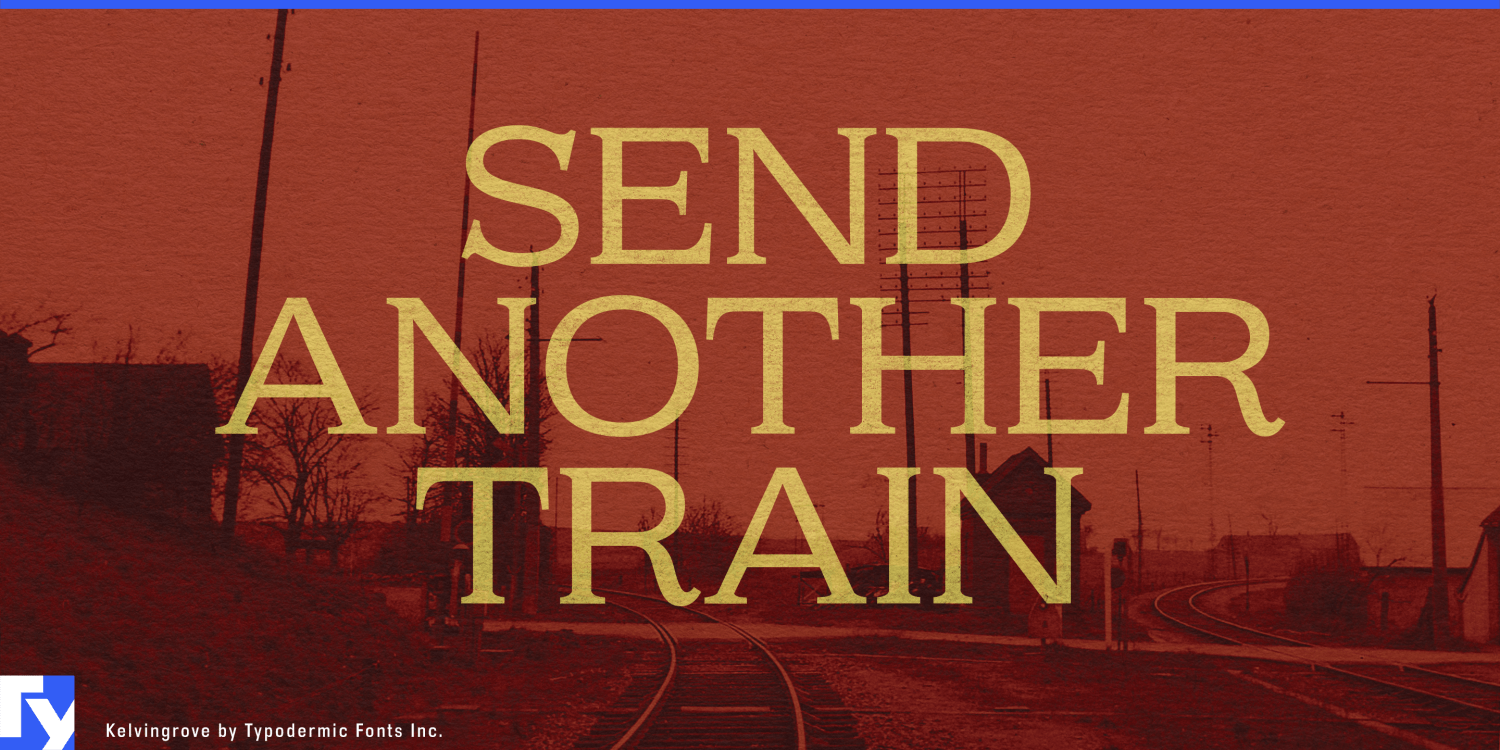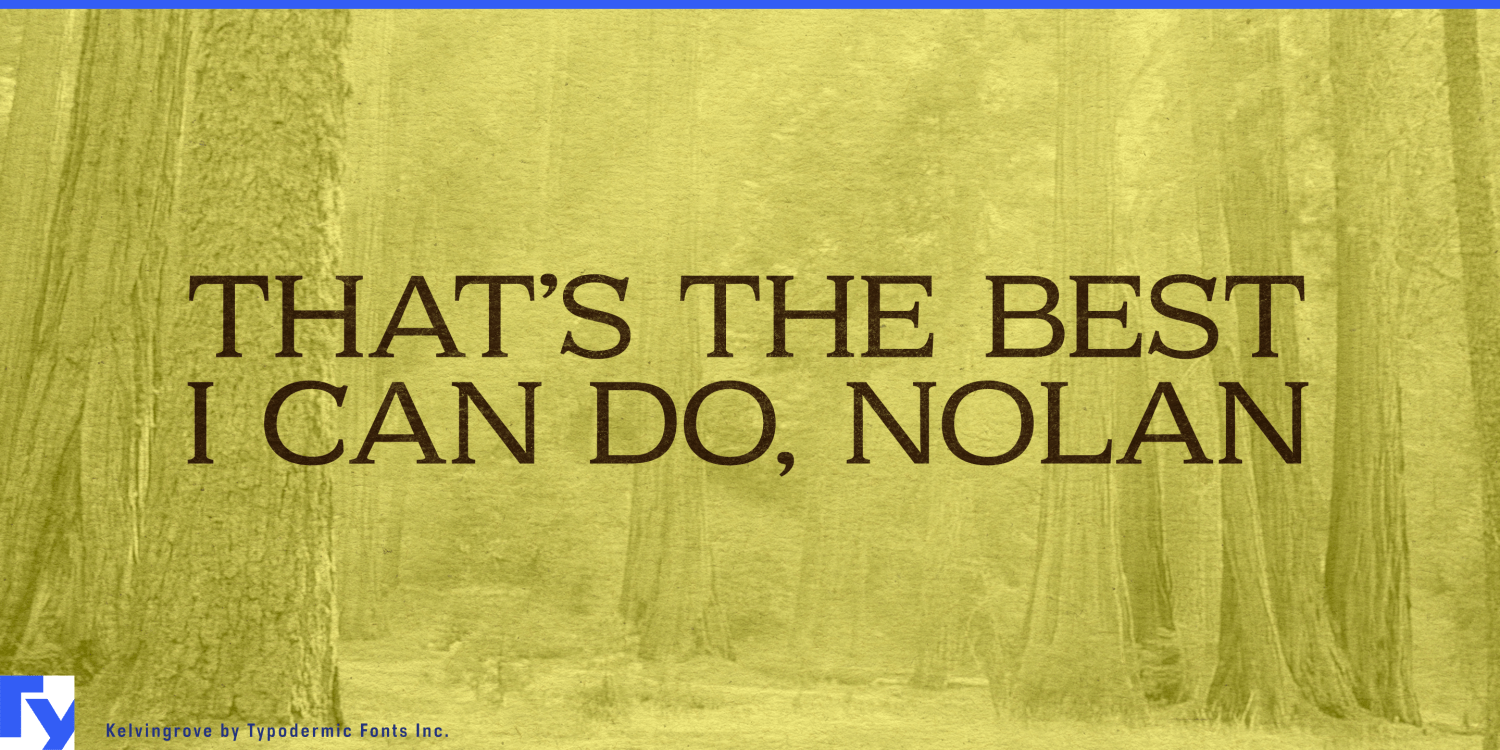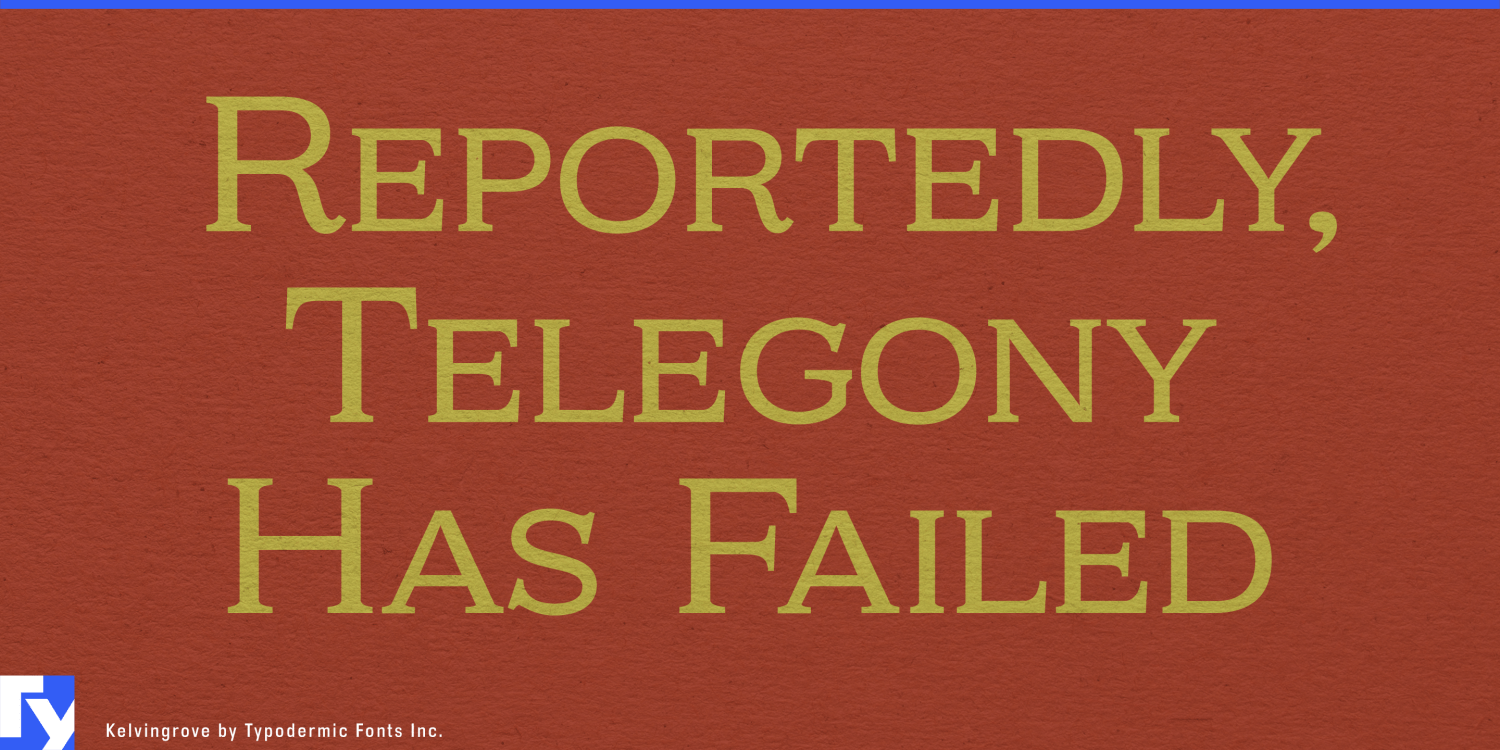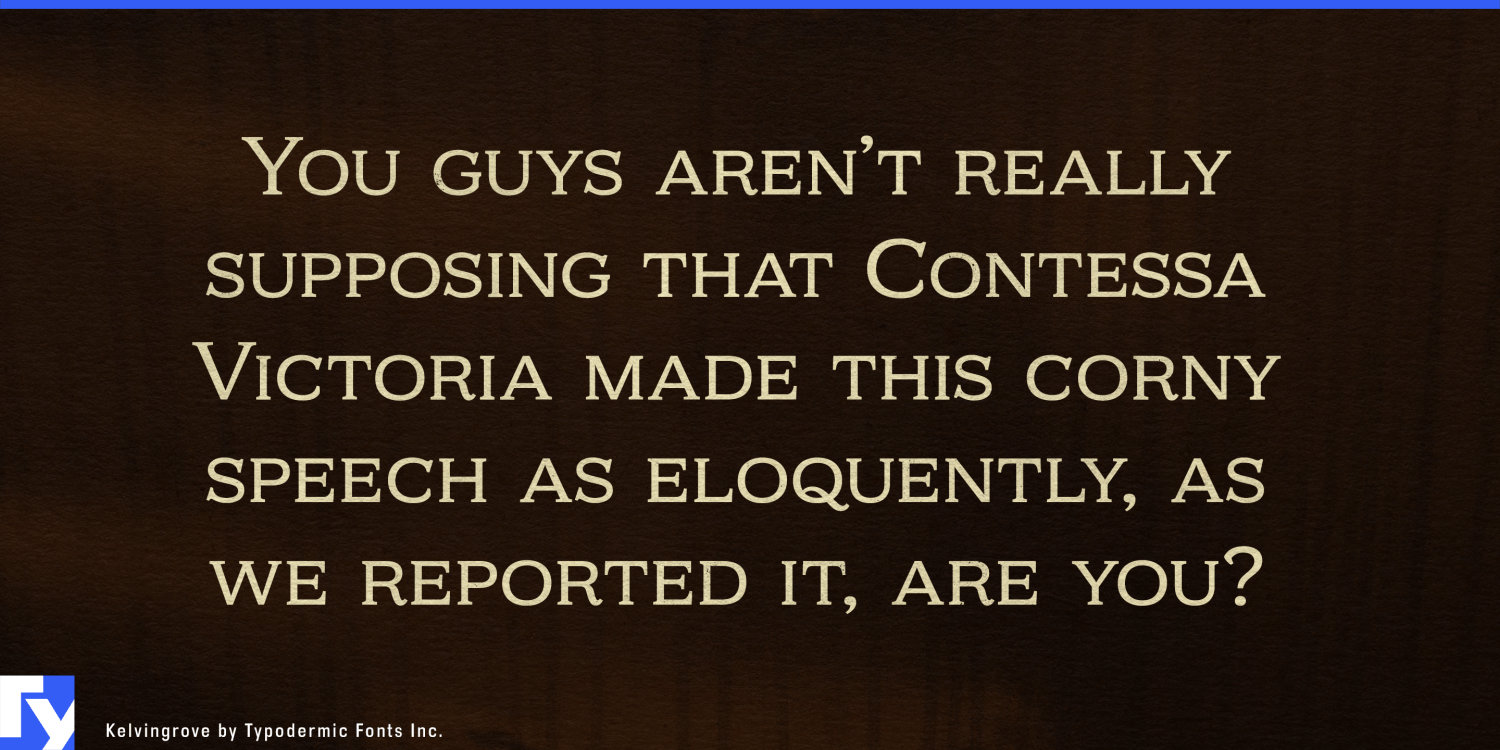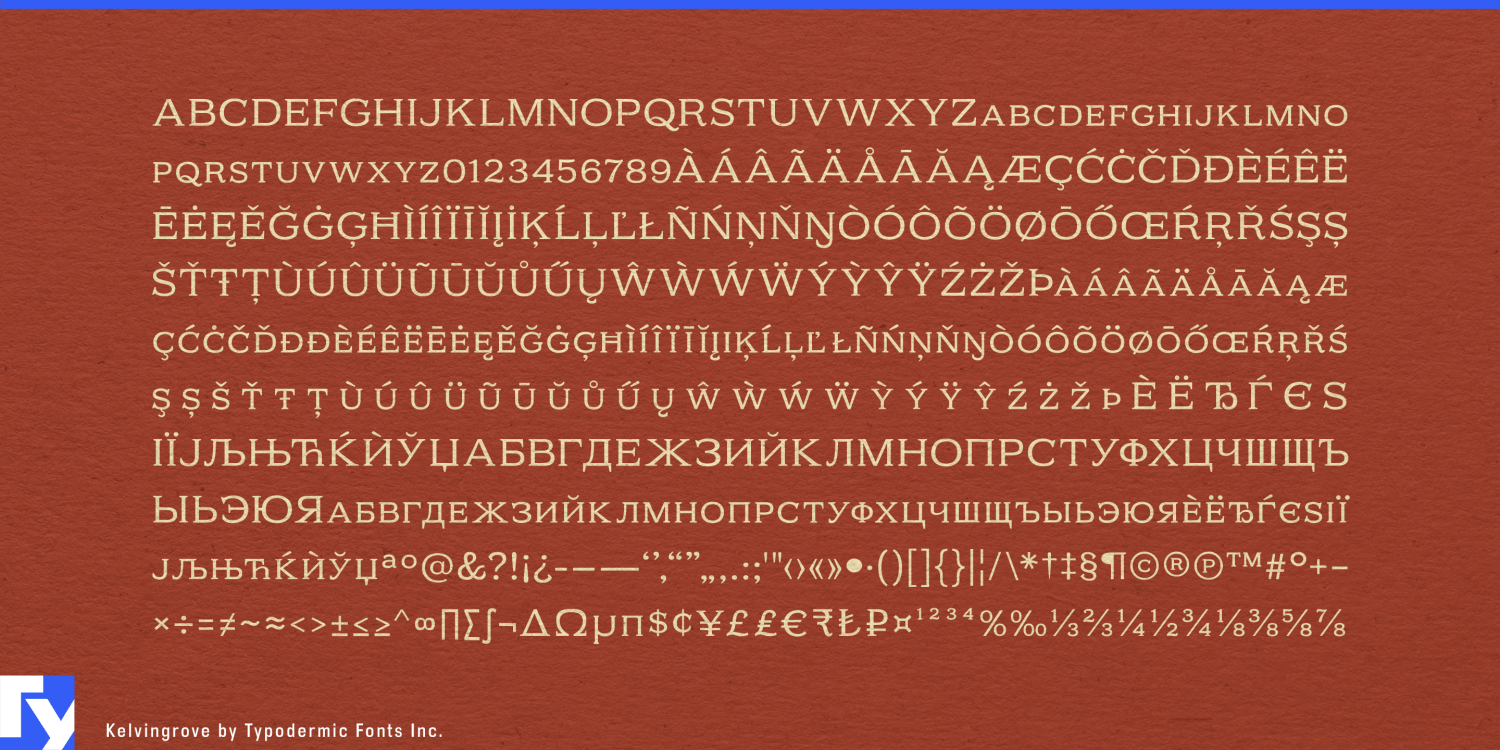
About Kelvingrove
Kelvingrove emerges as a refined small-cap typeface that marries the timeless elegance of Copperplate style with contemporary design sensibilities. This sophisticated font family strikes a delicate balance between classic charm and modern functionality,…